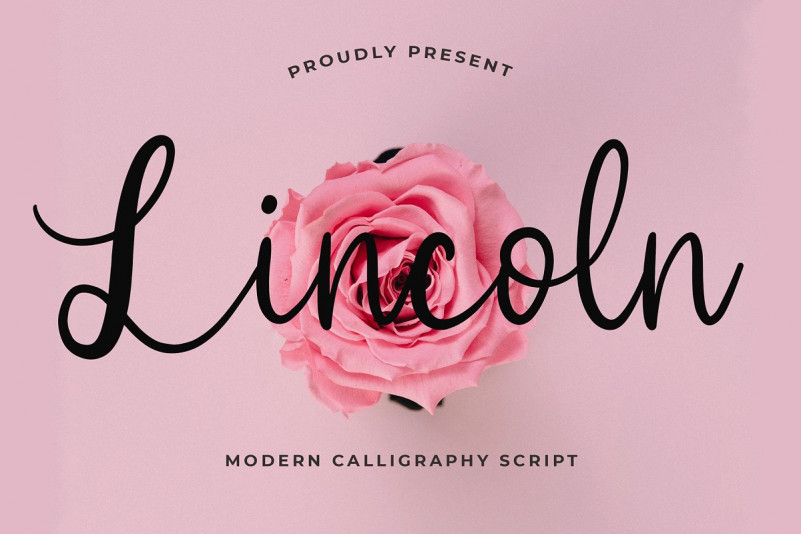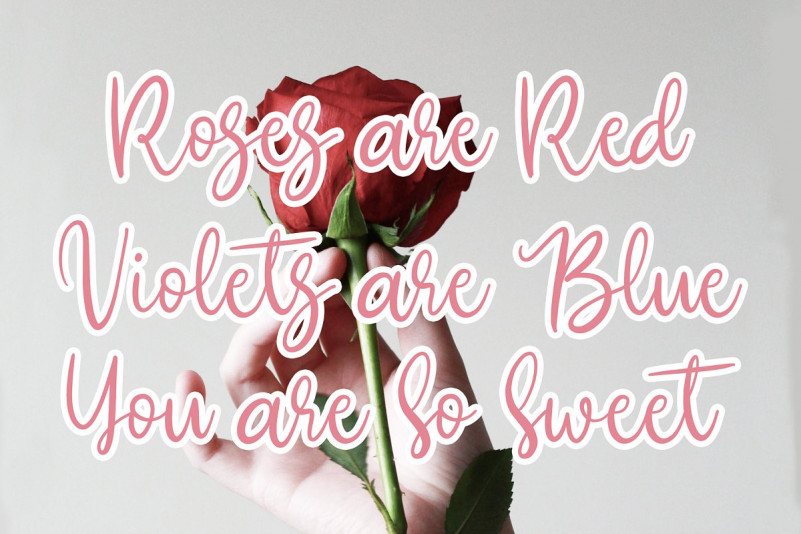
Lincoln Font
Lincoln is a beautiful calligraphy font. This beautiful script can make your text appear elegant, luxurious, and modern!
Lincoln is perfect for branding projects, logo, wedding designs, social media posts, advertisements, product packaging, tshirt design, product designs, label, photography, watermark, invitation, stationery and any projects.